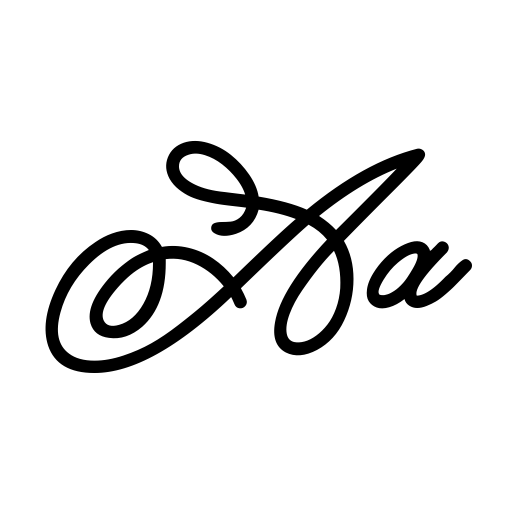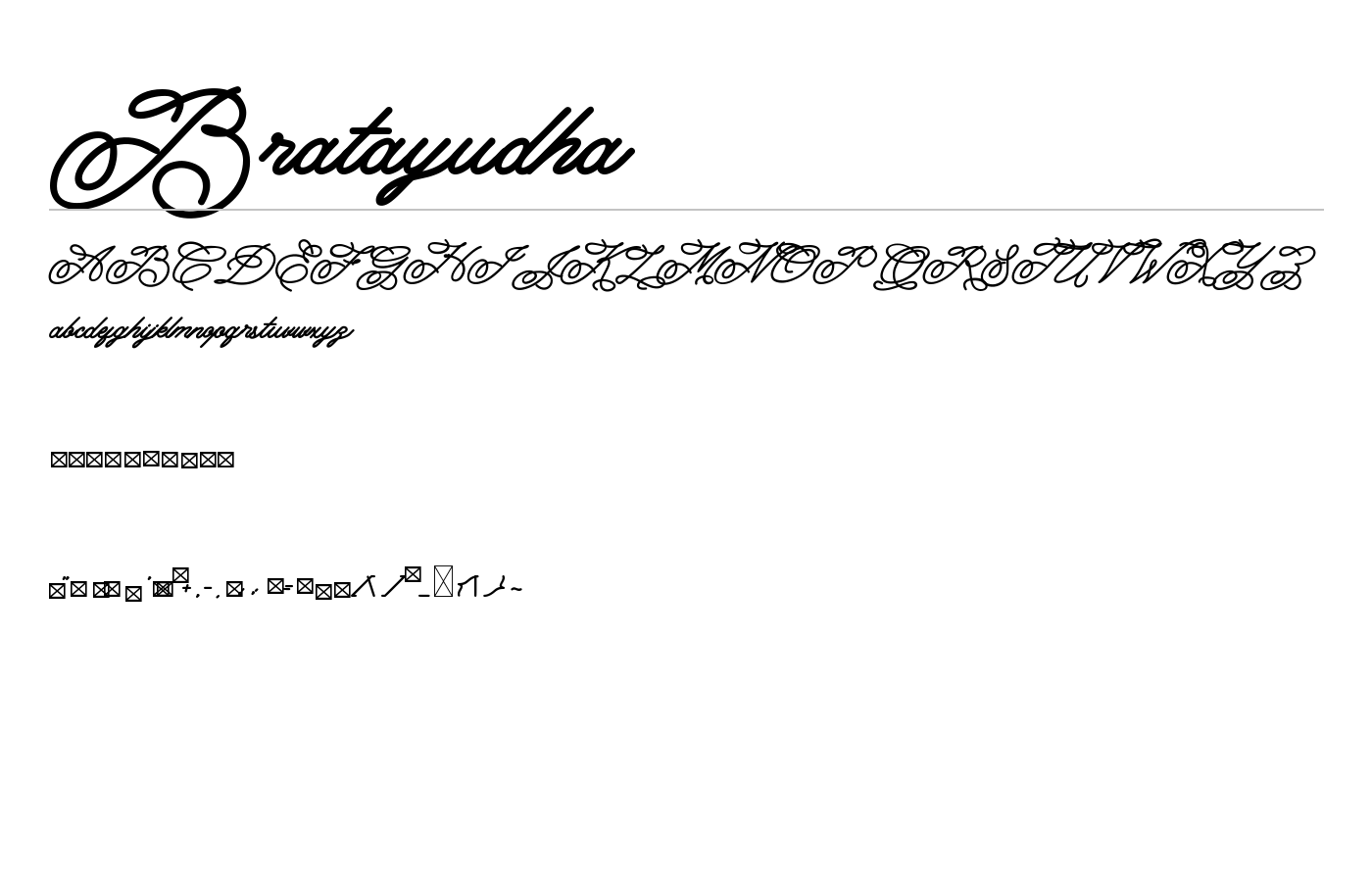
Bratayudha is a delicate script font characterized by elegant, flowing strokes and intricate loops, creating a graceful and refined look. Its slender, connected letterforms evoke a classic, vintage charm, making it ideal for wedding invitations, formal branding, and decorative uses where a touch of sophistication and artistry is desired. This font works best in display contexts where its ornate style can be fully appreciated.
Bratayudha Font
About Bratayudha Font
| Font family | Bratayudha Font |
| Designer | Yesie Erma Yunita |